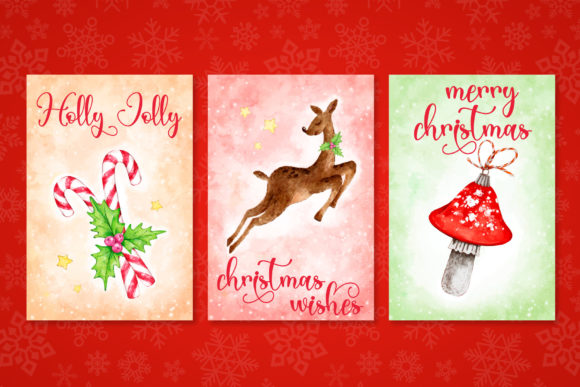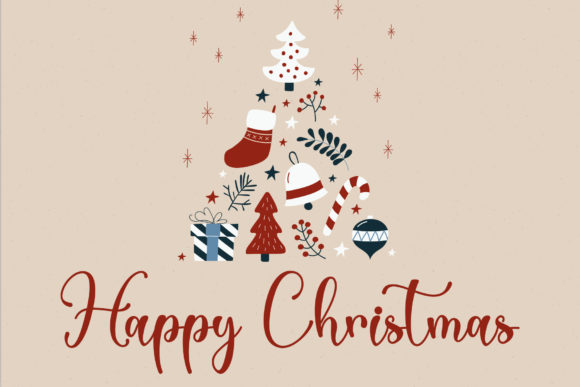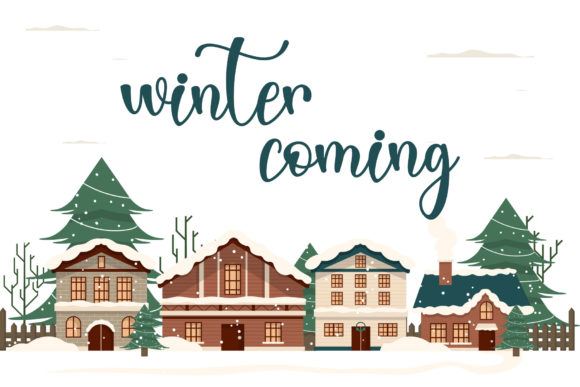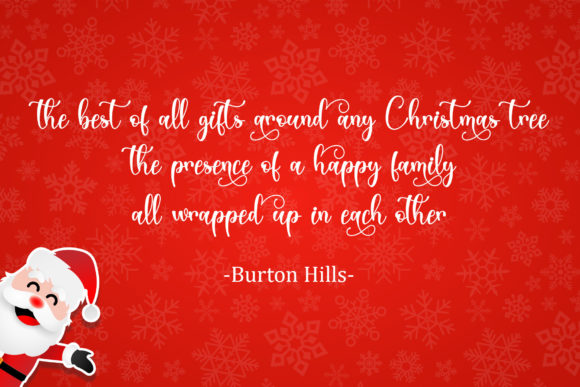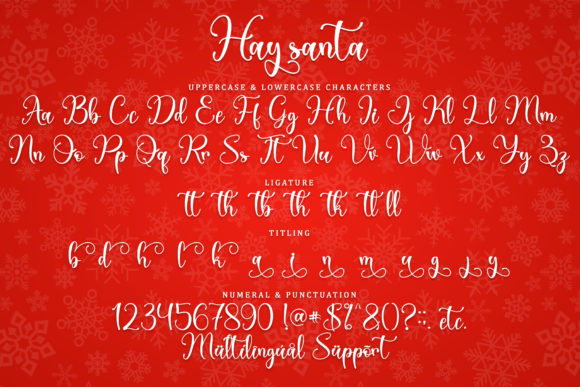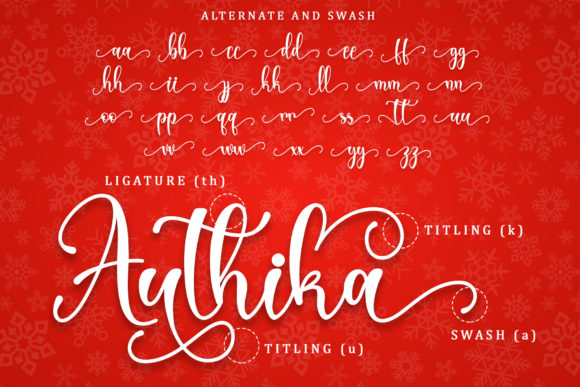
Discover the Charm of Hay Santa Font: A Timeless Handwritten Delight
Are you on the hunt for a font that exudes warmth, personality, and a touch of nostalgia? Look no further than Hay Santa Font, a lovely and timeless handwritten font that’s perfect for creating eye-catching logos, branding, and quotes. In this article, we’ll dive into the world of Hay Santa Font, exploring its features, benefits, and uses, as well as why it’s become a favorite among designers and crafters.
A Font that Stands the Test of Time
Hay Santa Font is a beautifully crafted handwritten font that’s reminiscent of traditional calligraphy. Its elegant and flowing lines evoke a sense of warmth and friendliness, making it an excellent choice for a wide range of design projects. Whether you’re creating a logo, branding materials, or social media graphics, Hay Santa Font is sure to leave a lasting impression.
What Makes Hay Santa Font So Special?
So, what sets Hay Santa Font apart from other fonts? For starters, it’s a PUA (Private Use Area) encoded font, which means you can access all of the glyphs and swashes with ease. This feature allows you to add an extra layer of creativity to your designs, making it easy to customize and personalize your text.
Another standout feature of Hay Santa Font is its versatility. This font is perfect for a wide range of design projects, from:
- Quotes and social media graphics
- Stationery and invitations
Hay Santa Font offers a range of benefits for designers and crafters, including:
- Ease of use: With its PUA encoding, you can easily access all of the glyphs and swashes, making it simple to customize and personalize your text.
- Flexibility: Hay Santa Font is perfect for a wide range of design projects, from logos and branding materials to quotes and social media graphics.
- Unique and eye-catching: This font’s elegant and flowing lines make it stand out from the crowd, ensuring your designs will grab attention and leave a lasting impression.
- Timeless appeal: Unlike trendy fonts that quickly go out of style, Hay Santa Font has a timeless quality that will remain relevant for years to come.
Tips for Using Hay Santa Font
To get the most out of Hay Santa Font, here are a few tips to keep in mind:
- Experiment with different sizes and colors: Hay Santa Font looks great in a variety of sizes and colors, so don’t be afraid to experiment and find the perfect combination for your design.
- Mix and match with other fonts: Pair Hay Santa Font with other fonts to create a unique and eye-catching look.
- Use it for headlines and titles: Hay Santa Font is perfect for headlines and titles, where its elegant and flowing lines can really shine.
Hay Santa Font is a truly special font that’s perfect for designers and crafters looking to add a touch of elegance and personality to their designs. With its PUA encoding, versatility, and timeless appeal, it’s no wonder this font has become a favorite among creatives. Whether you’re creating logos, branding materials, or social media graphics, Hay Santa Font is sure to impress. So why wait? Give it a try today and discover the charm of Hay Santa Font for yourself!